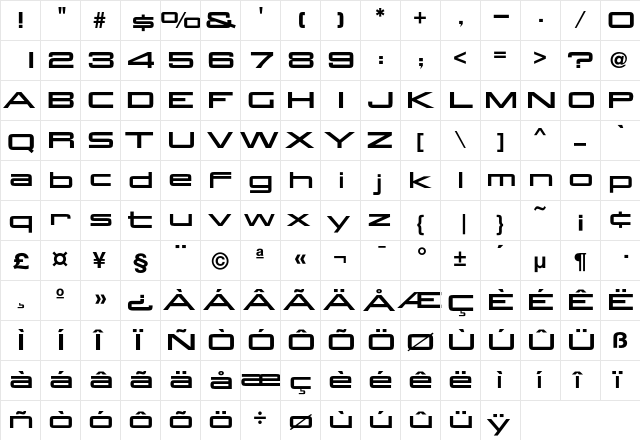
Aggie Normal
Design Context for Aggie Typeface
Aggie is a composed and adaptable typeface that performs quietly and consistently across a wide range of design contexts.